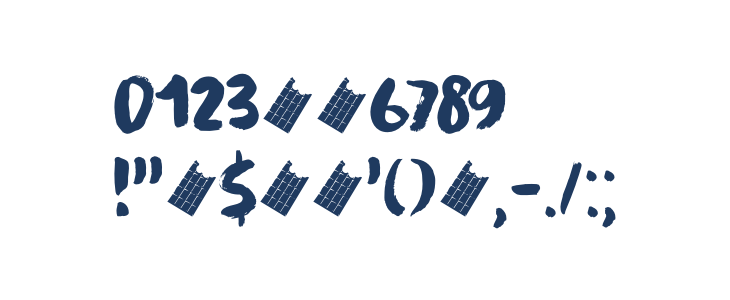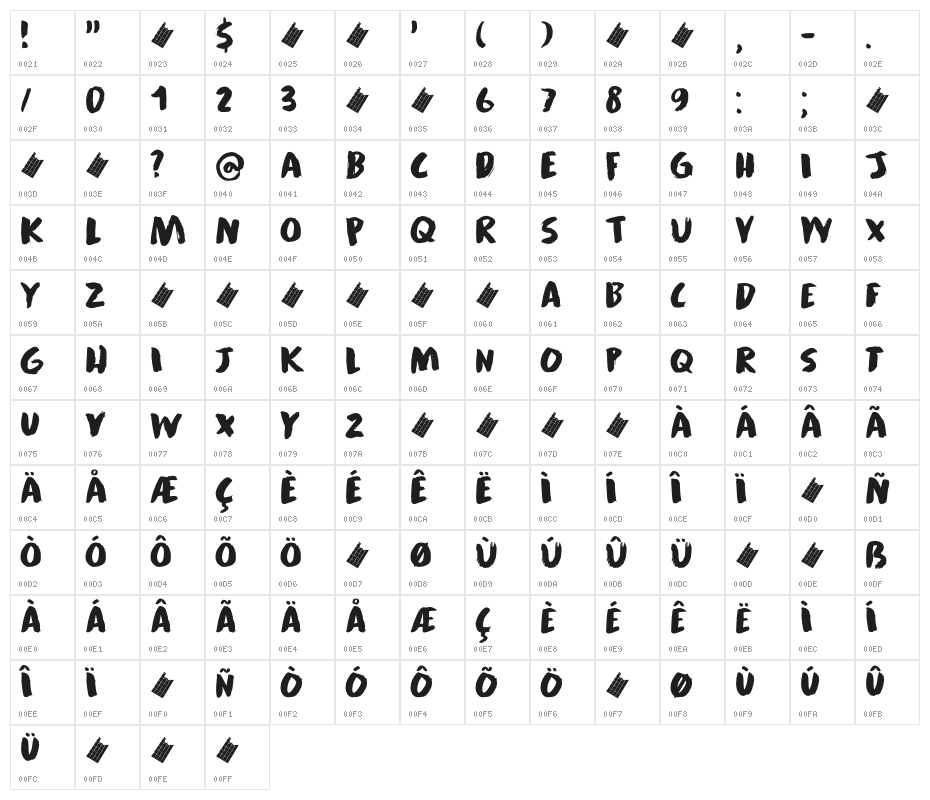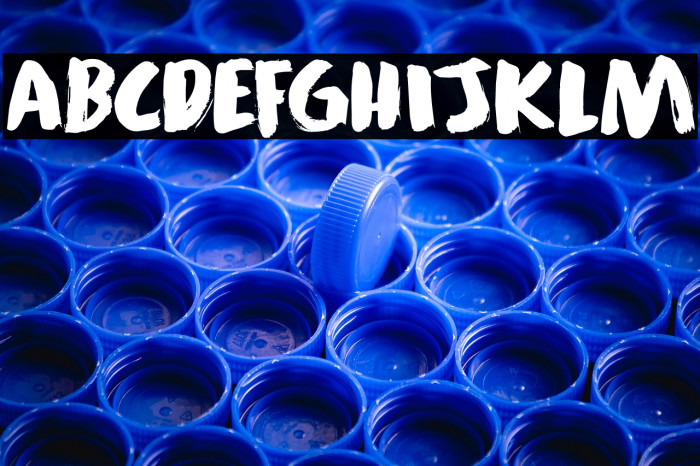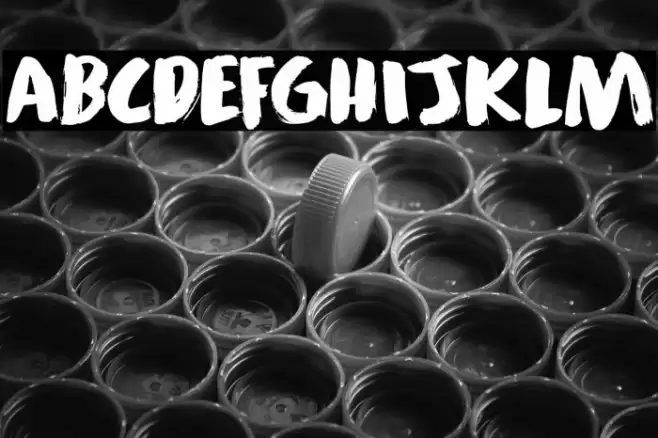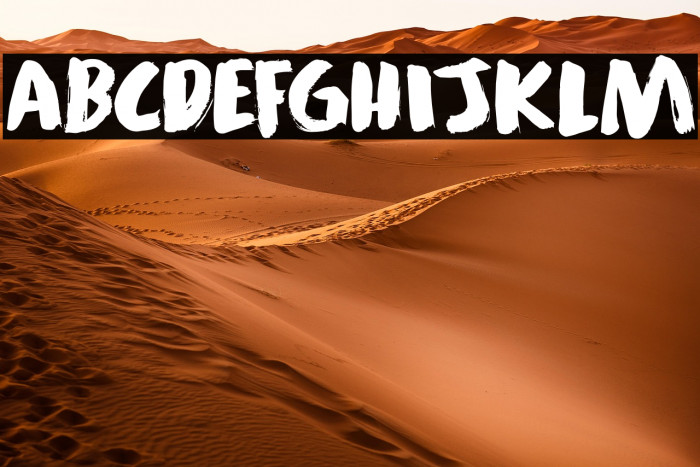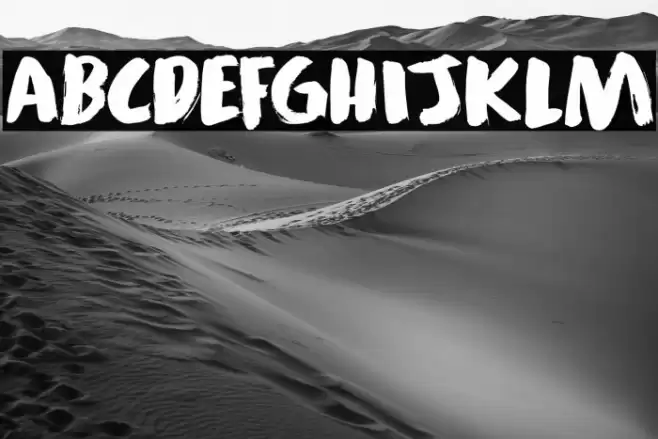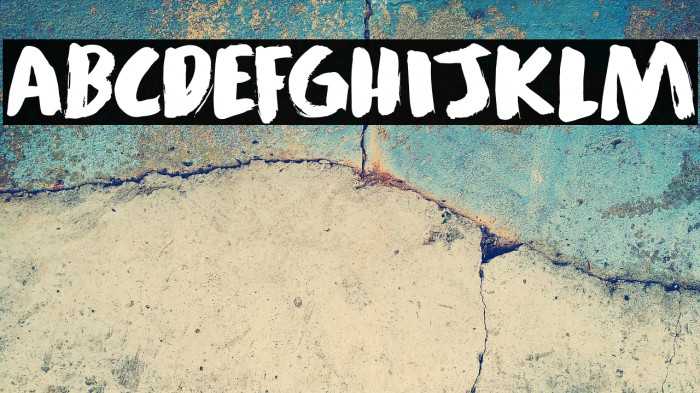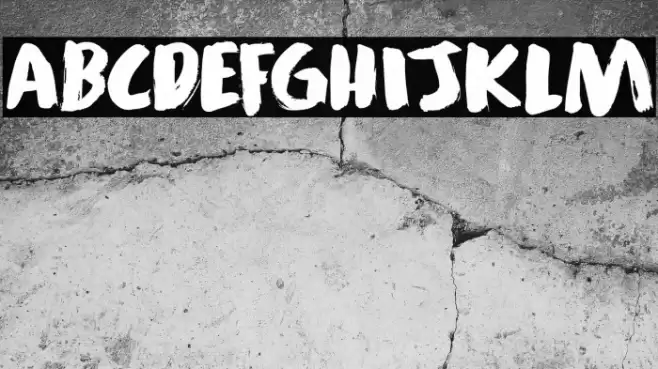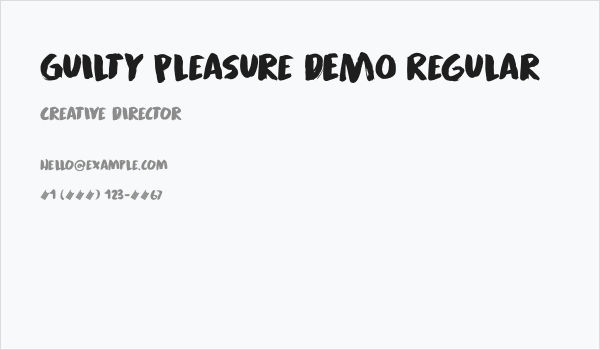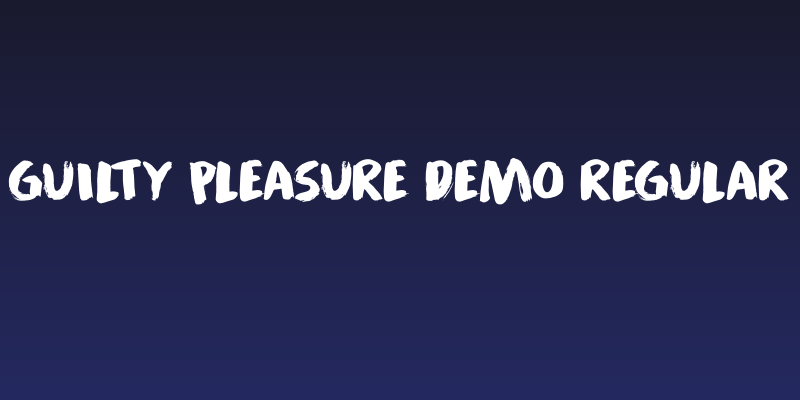
Guilty Pleasure DEMO Regular Font
Guilty Pleasure DEMO Regular Description
This font features a bold, brush-like style with thick strokes and a dynamic, energetic appearance. The characters are crafted with an uneven texture, giving them a hand-painted look that adds a sense of movement and spontaneity. The uppercase and lowercase letters maintain a consistent style, with rounded edges and a slightly irregular form that enhances the artistic feel. Numbers and special characters follow the same design principles, ensuring a cohesive look across all elements. This font is ideal for projects that require a bold and expressive touch, such as posters, branding, and creative designs.
| Proposed Projects | Ideal for posters, branding, creative designs, and any project needing an expressive touch. |